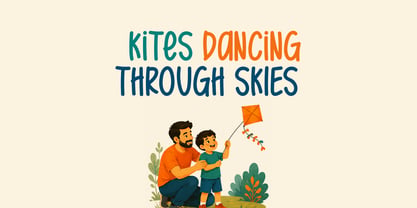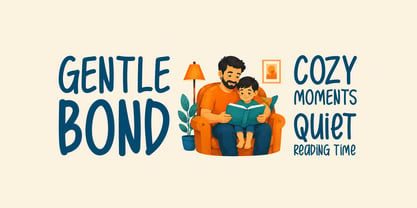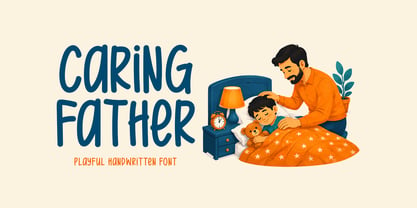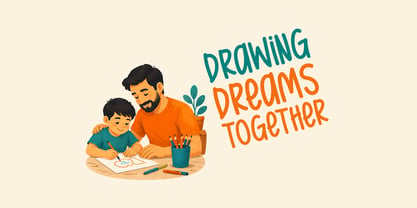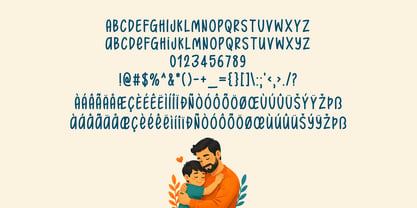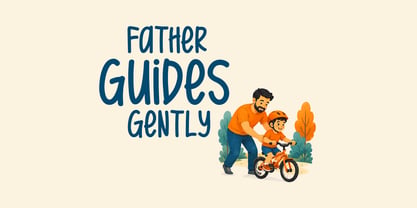
Caring Father
by Seemly Fonts
The Caring Father Font Family was designed by Md. Sohail Bhuiyan and published by Seemly Fonts. Caring Father contains 1 styles. More about this family
Caring Father is a warm and heartfelt handwritten font inspired by love, comfort, and family bonding moments. Its smooth curves and playful personality make it perfect for children’s projects, greeting cards, t-shirt designs, posters, nursery decor, branding, social media graphics, invitations, photo overlays, and emotional storytelling designs. Caring Father brings a soft, friendly, and loving touch to every creative project with a natural handwritten feel.
Designers: Md. Sohail Bhuiyan
Foundry: Seemly Fonts